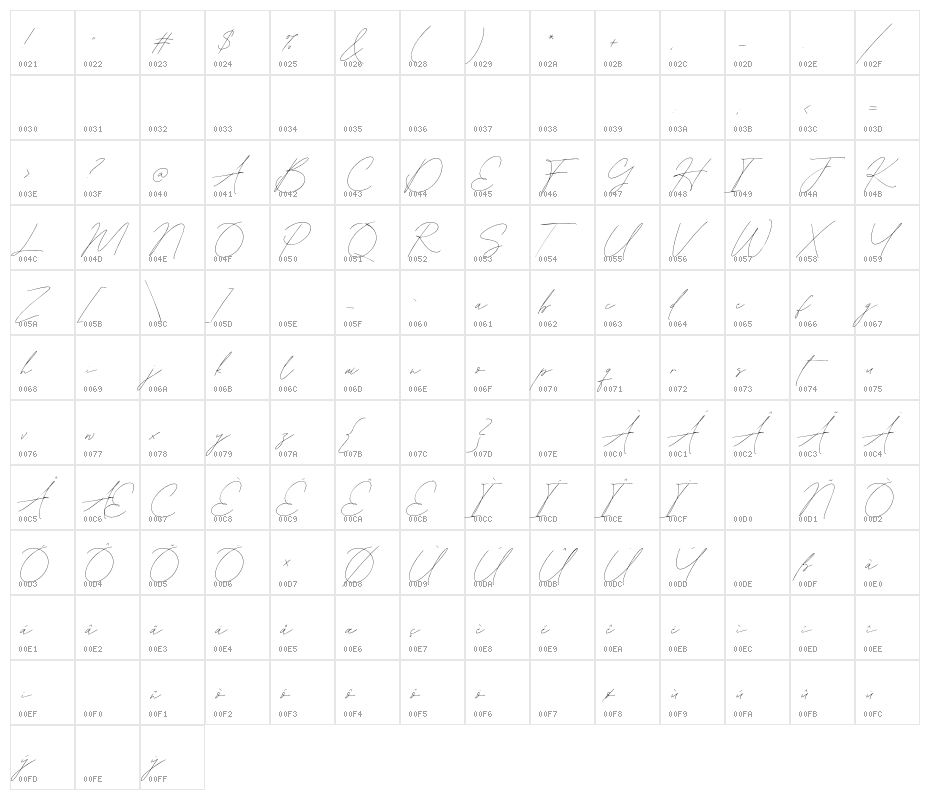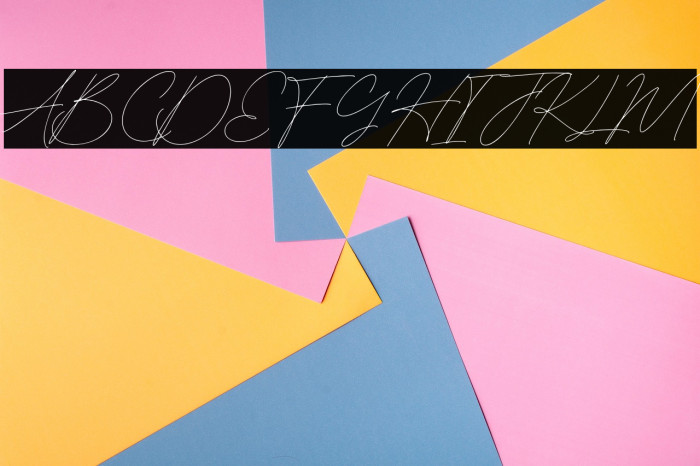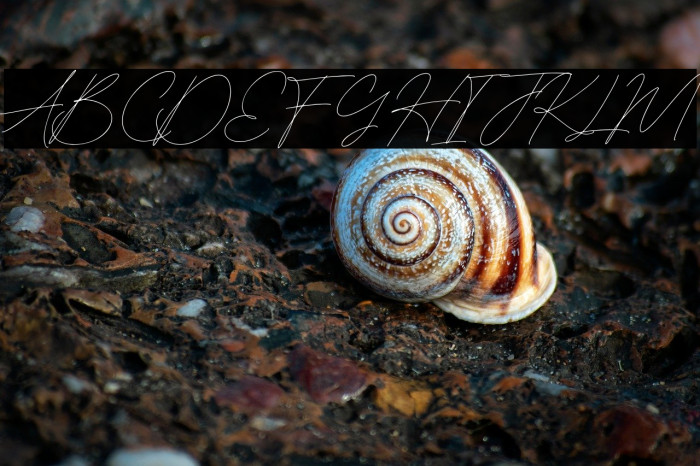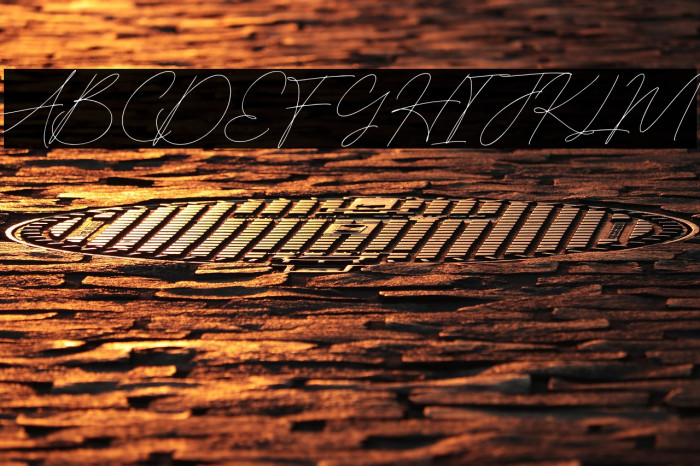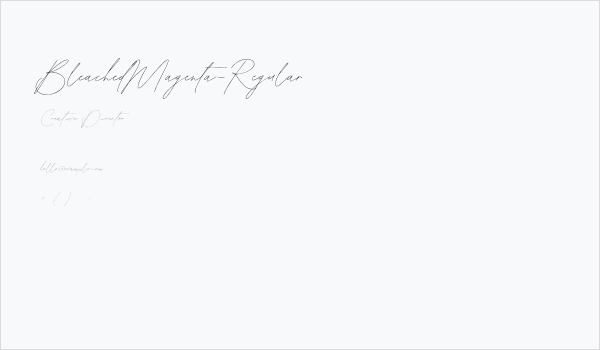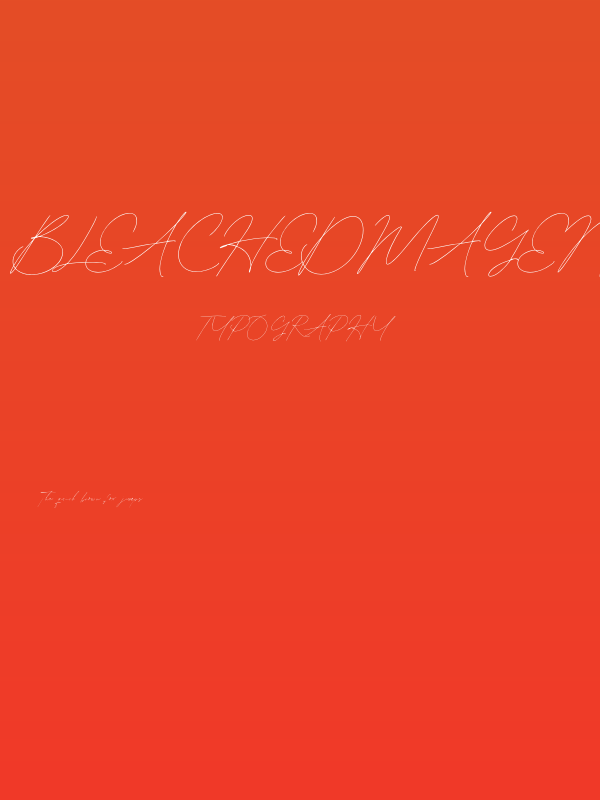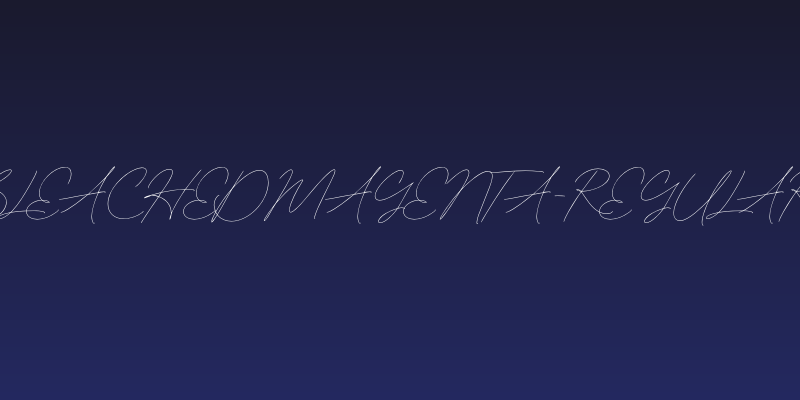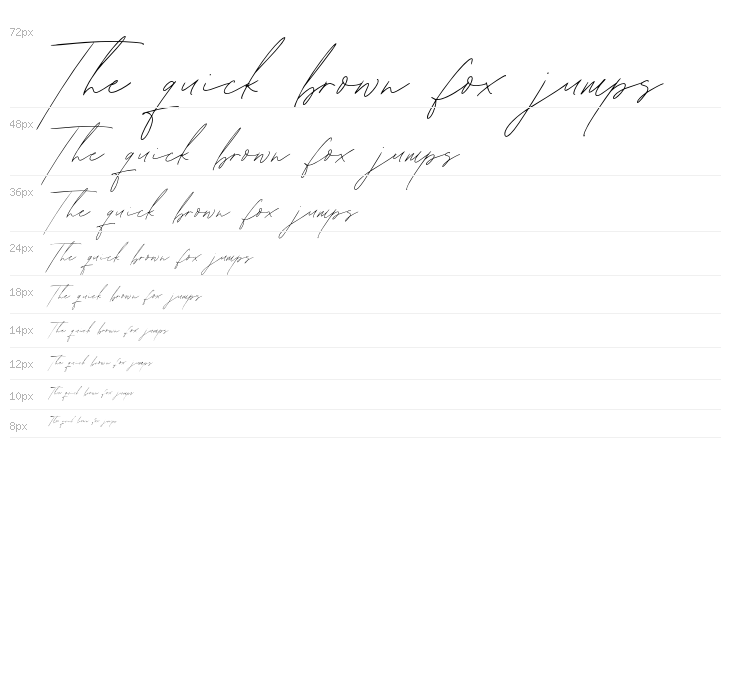
BleachedMagenta-Regular Font
BleachedMagenta-Regular Description
A delicate, highly slanted handwritten script with thin, wispy strokes and a loose, flowing structure. The characters are connected in a natural, cursive style, evoking a sense of spontaneity and elegance.
| Overall Style | Decorative, Artistic, Modern |
| Use Case | Logos, Headlines, Invitations, Artistic projects |
| Proposed Projects | Invitations, personal branding, artistic posters, greeting cards, fashion editorials. |